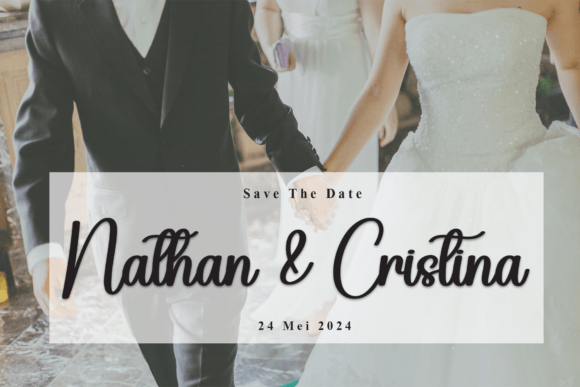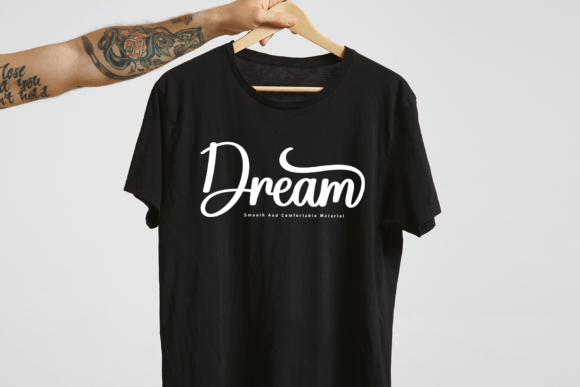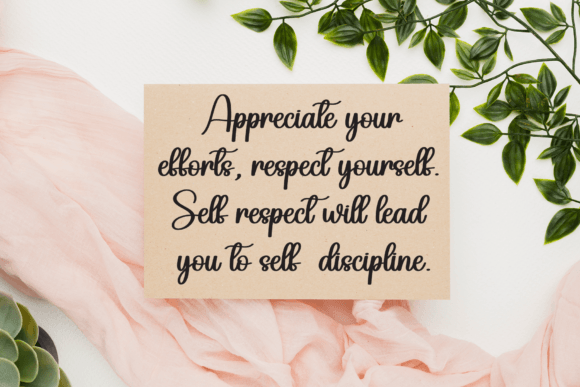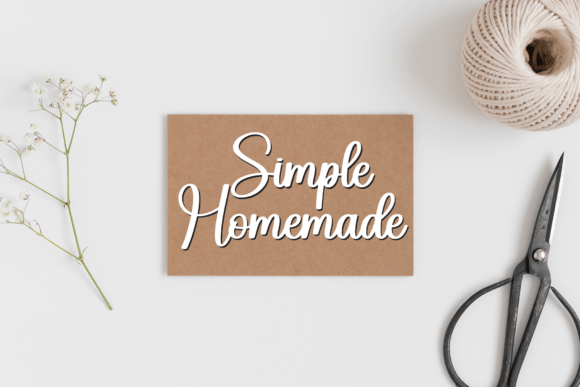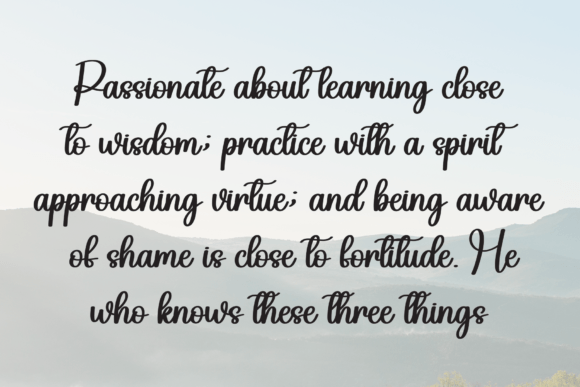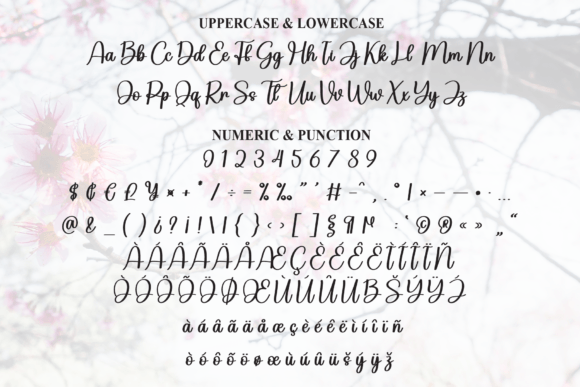
Introduction to Saga Font
Have you ever stumbled upon the perfect font while working on a creative project, only to find yourself completely captivated by its unique charm? That’s exactly what happens when you discover the Saga Font – a beautiful, handwritten font that adds an elegant touch to any design. Whether you’re working on a personal project or a professional design, the Saga Font is sure to be a valuable addition to your creative arsenal.
As a design resource, the Saga Font stands out from the crowd with its high-quality, distinct style that’s perfect for a wide range of creative projects. And the best part? It’s available for free download, making it an accessible and versatile tool for designers of all levels. Whether you’re looking to add a touch of whimsy to your designs or create a more professional look, the Saga Font is an excellent choice.
Honest Review: Saga Font
As a designer, I’m always on the lookout for high-quality design resources that can elevate my creative projects. Recently, I had the opportunity to work with the Saga Font, and I must say it’s been a game-changer.
What works well with the Saga Font is its versatility and high-quality design. The font is available for free download, making it a great resource for designers on a budget. I’ve used it for a variety of projects, from logos to brochures, and it always looks great. The font’s transparent background also makes it easy to customize and pair with other design elements.
One limitation of the Saga Font is that it may not be suitable for complex, multi-line text. The font’s design is more suited for short, punchy phrases and titles.
Overall, I’m thoroughly impressed with the Saga Font. Its high-quality design and versatility make it a great addition to any designer’s toolkit. Whether you’re working on a simple logo or a complex brochure, the Saga Font is definitely worth checking out.
Saga Font
The Saga Font is a high-quality design resource perfect for any creative project. With its transparent background, you can easily integrate it into your design without any hassle.
Tips for Getting the Most Out of Saga Font
To get the most out of Saga Font, use it in conjunction with other design elements to create a cohesive look. Experiment with different font sizes, colors, and styles to find the perfect combination for your project.
The Saga Font is perfect for a variety of projects, including logos, brochures, business cards, and more. Its high-quality design makes it ideal for any creative project where a professional look is required.
Great Vibes Font is a great alternative to Saga Font as it offers a similar handwritten feel, but with a more elegant and refined touch. While Saga Font has a more casual, playful vibe, Great Vibes Font is better suited for more formal or professional designs.
Alex Brush Font is a great alternative to Saga Font as it offers a similar handwritten feel, but with a more refined and polished touch. While Saga Font has a more casual, playful vibe, Alex Brush Font is better suited for more formal or professional designs.